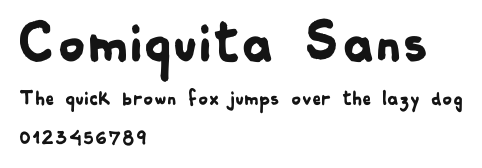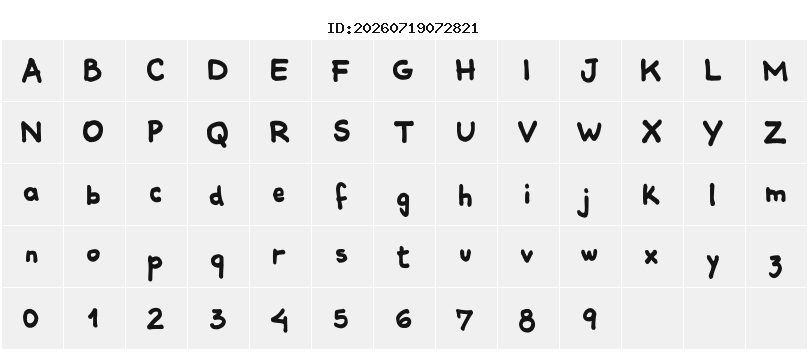
• Font Name: Comiquita Sans
About Comiquita Sans.ttf
Comiquita Sans.ttf is a modern, elegant sans-serif font designed for ultimate readability and visual harmony. Perfect for branding, headlines, web design, and print materials.